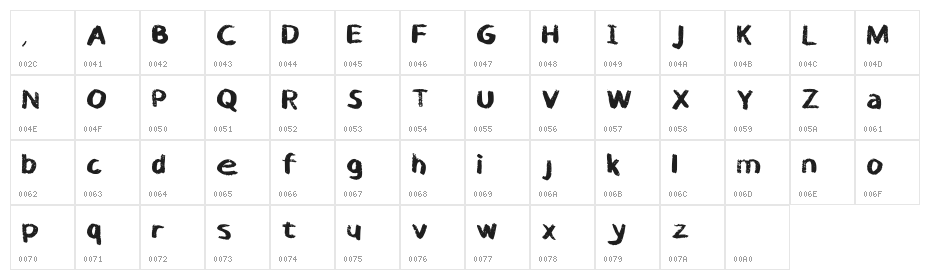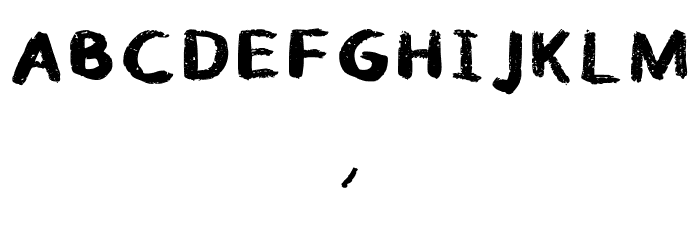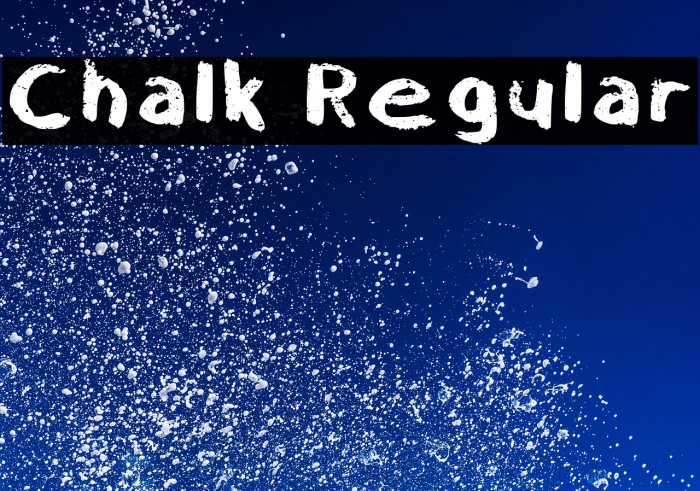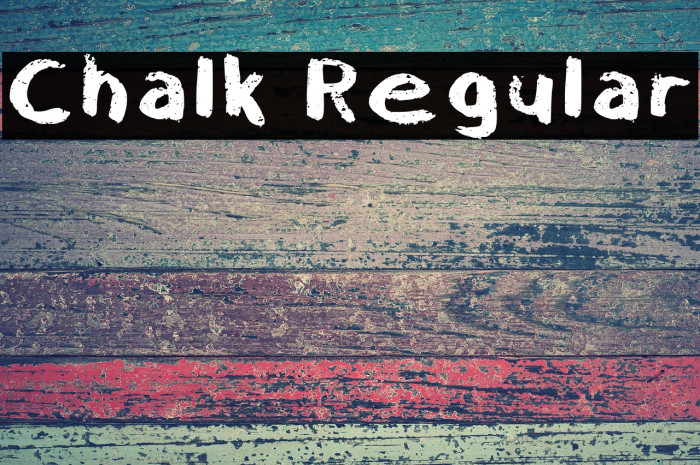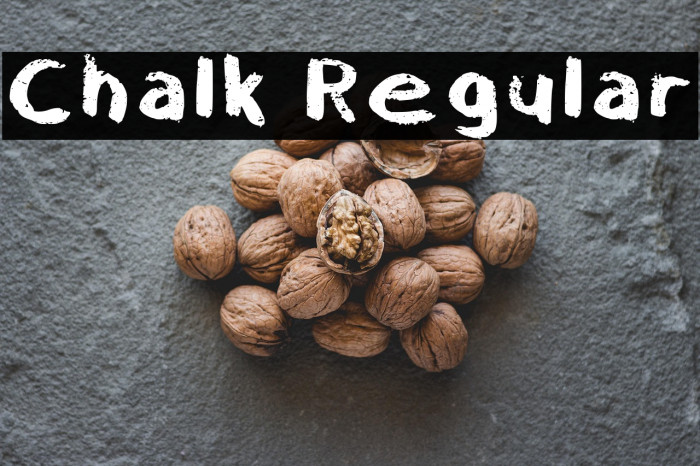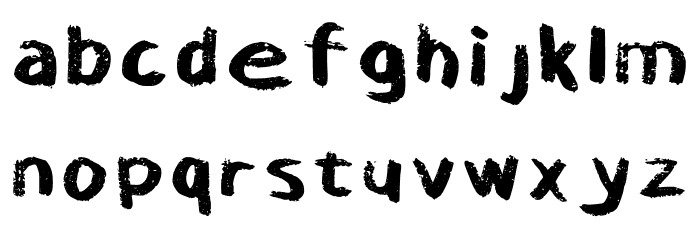
Chalk Regular Font
Chalk Regular Description
This font features a textured, hand-drawn style reminiscent of chalk writing on a blackboard. The letters have a rough, uneven edge that gives them a casual and playful appearance. The uppercase and lowercase characters maintain a consistent style, with a slightly bold weight that enhances readability. The numbers and special characters follow the same design, ensuring a cohesive look across all text elements. This font is perfect for projects that aim to convey a sense of creativity and informality.